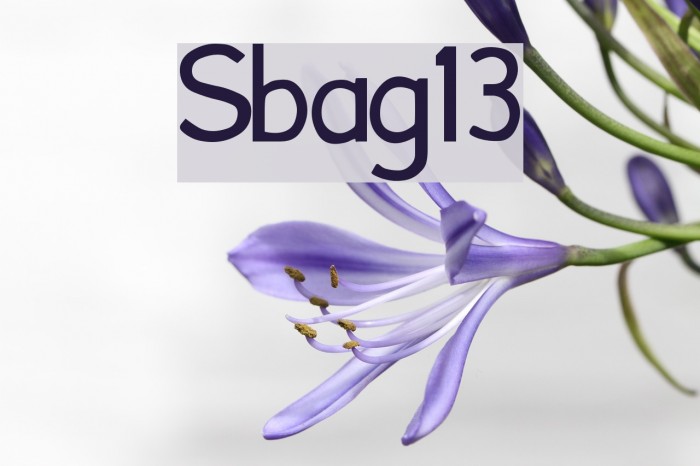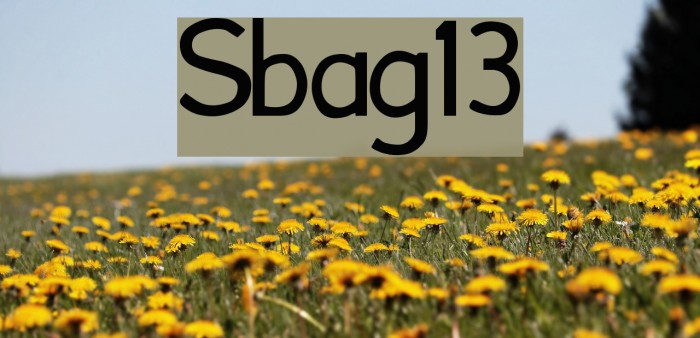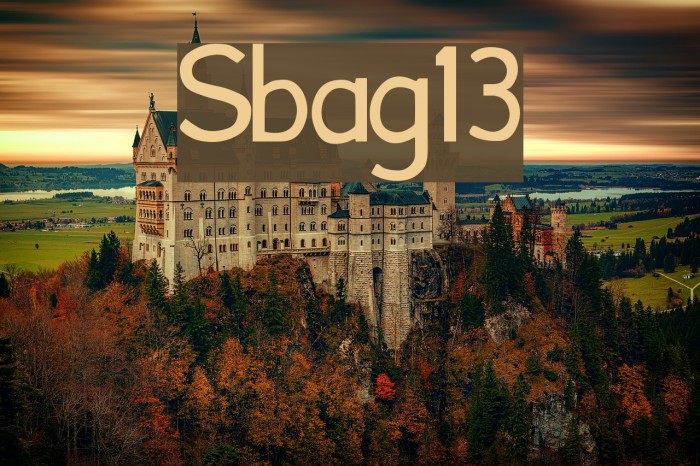
Font13 Font
This font features a clean and modern sans-serif design, characterized by its geometric shapes and uniform stroke widths. The uppercase and lowercase letters are well-proportioned, offering a harmonious balance that enhances readability. The numerals are clear and distinct, making them suitable for both digital and print applications. Special characters are designed with the same attention to detail, ensuring consistency across all glyphs. The overall appearance is sleek and professional, making it versatile for various design needs.
A modern, geometric sans-serif font with uniform strokes and excellent readability.
- Proposed Projects: Ideal for branding, web design, corporate materials, and editorial layouts.